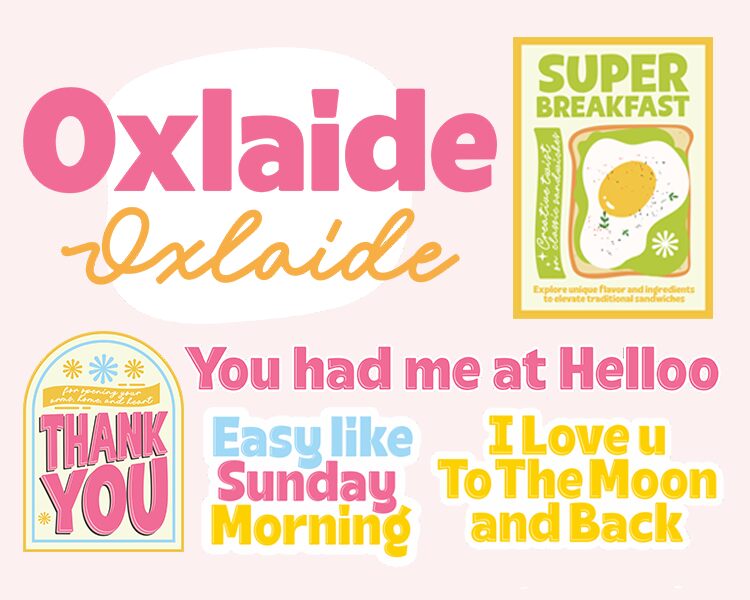
Oxlaide font by Four Lines is a modern rounded display font with clean lines and geometric shapes. This bold, high-impact typeface offers a sleek appearance, making it an obvious choice for impressive headline presentations. It features soft curves that equally position it somewhere between the technical and the lithe.
Oxlaide is not only useful for tailored headlines such as those of newspapers or magazines but also works well in posters, banners, websites, branding/virtual identity design, business cards and more! The font can also be used in advertising whether printed or digital since its legibility is impeccable throughout all sizes.
Oxlaide